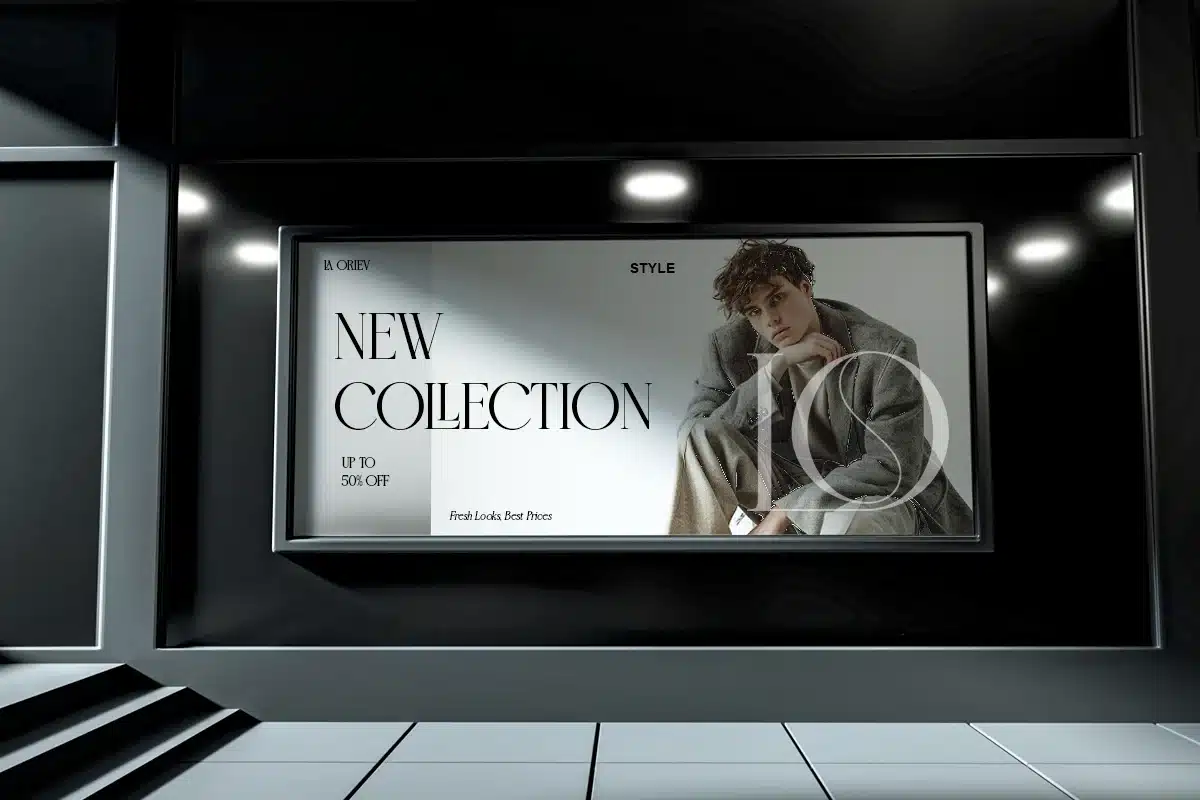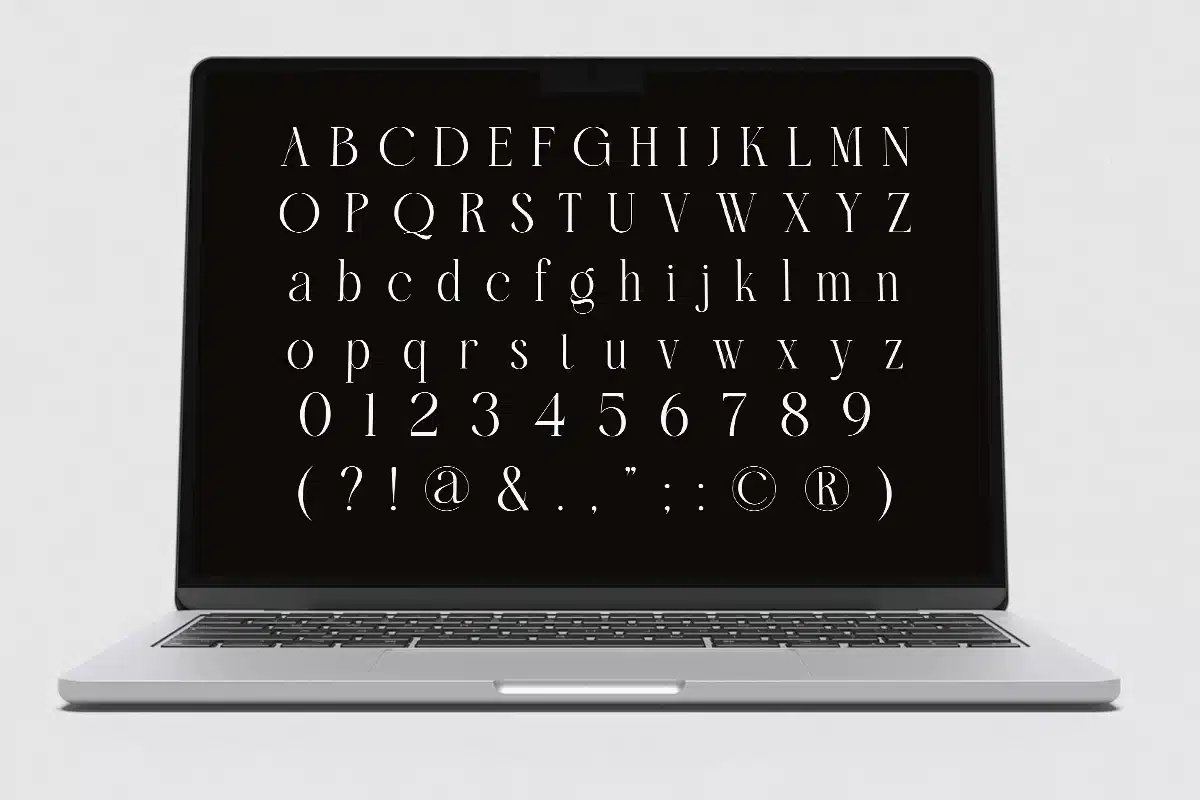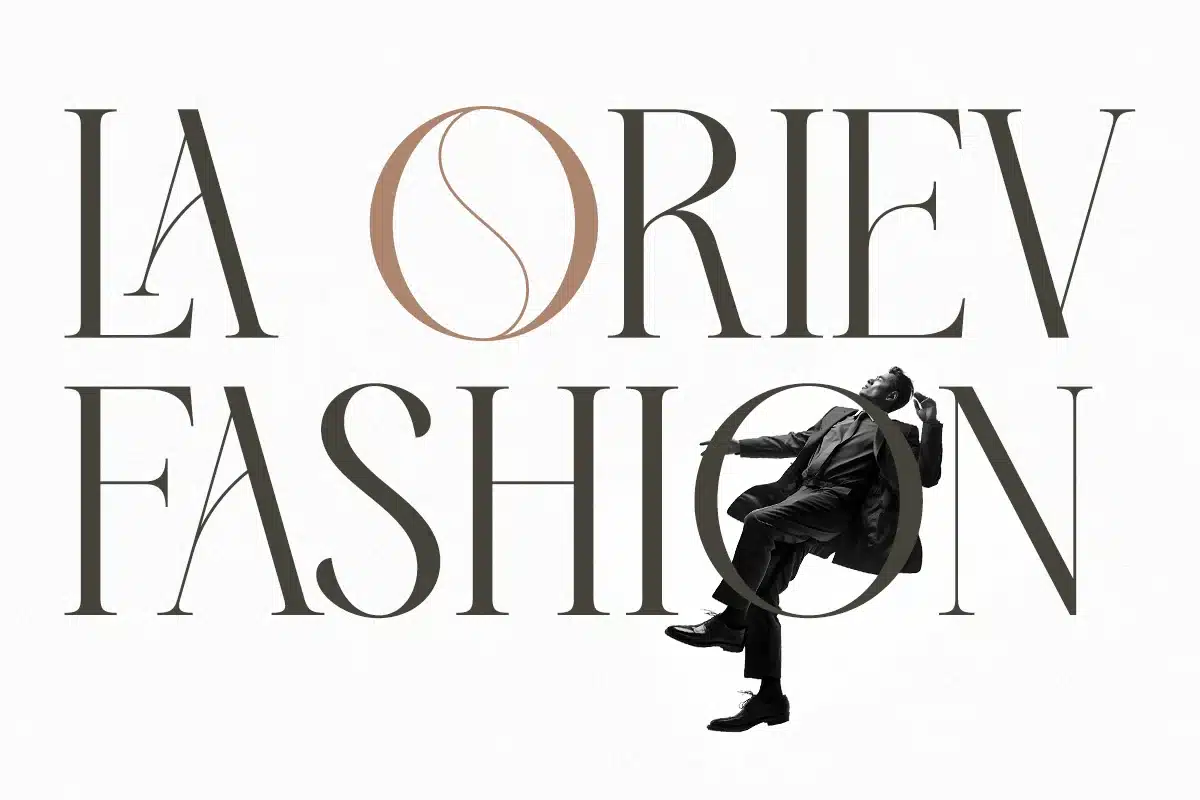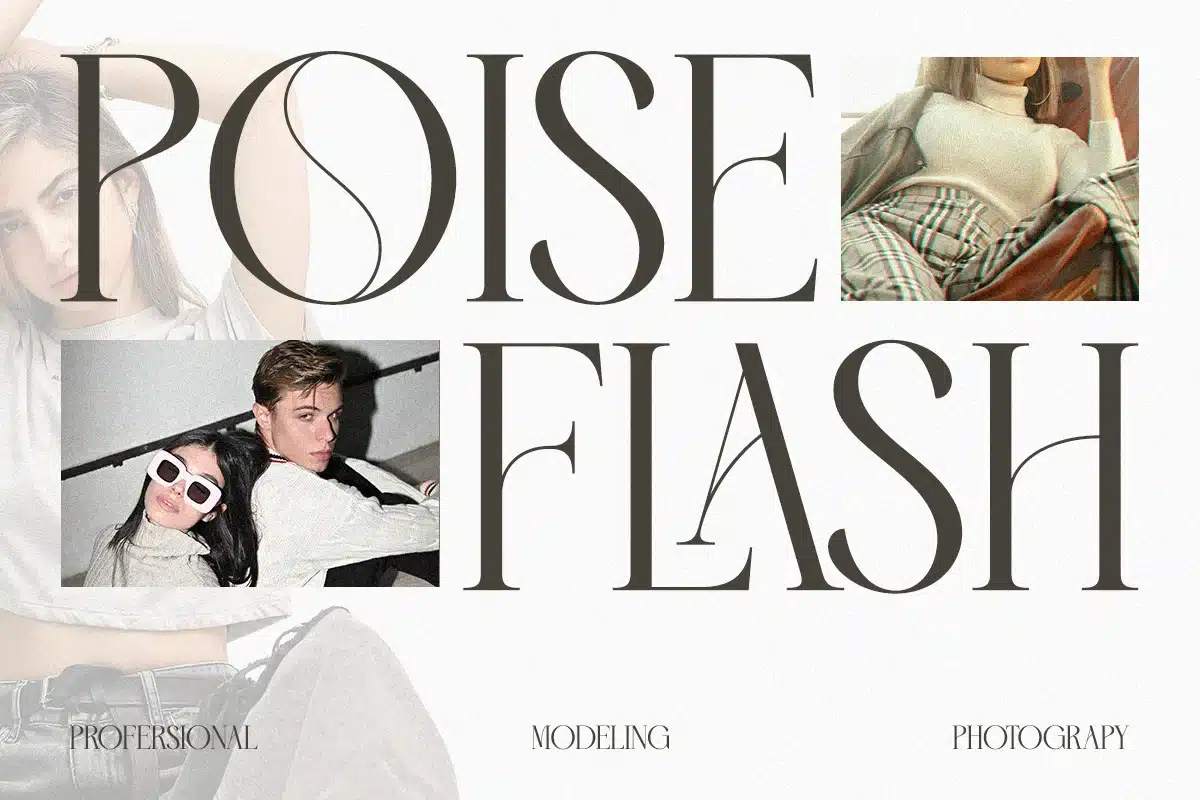
Modern Elegant Branding – Roliace Font
Roliace is a modern classy serif typeface designed for premium branding and sophisticated editorial typography. With refined contrast, elegant curves, and stylish ligatures, it delivers a timeless luxury appearance.
Its balanced letterforms and clean structure make Roliace perfect for fashion branding, editorial headlines, corporate identity, and packaging design. The typeface blends modern elegance with professional clarity.
Designed for designers seeking classy serif typography with strong presence.
- Uppercase & lowercase
- Regular & Italic
- Alternates & ligatures
- Elegant high-contrast serif
- Professional kerning